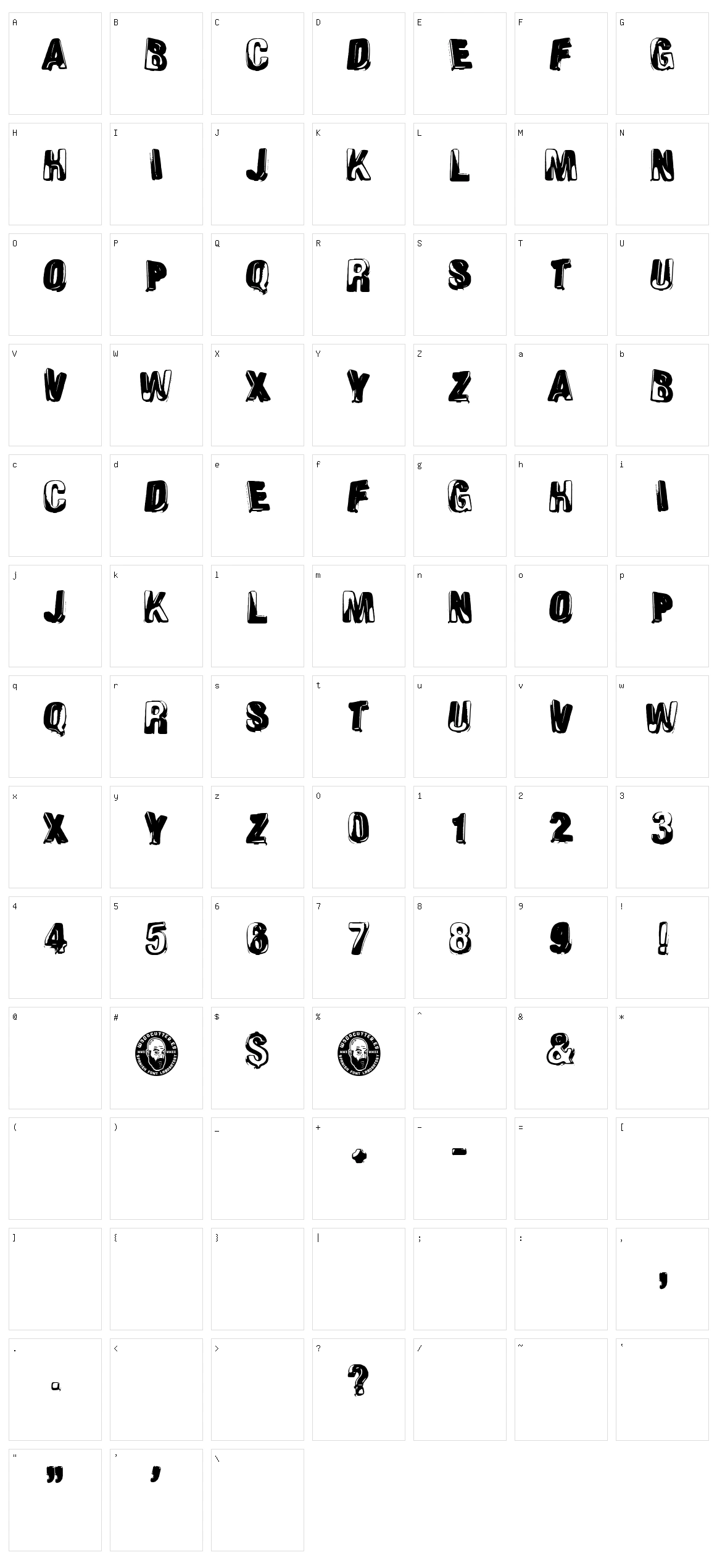
The free font Schizoid Personality is carefully designed by Woodcutter, showcasing a thoughtful balance of creativity and usability and falls under the Distorted font style. When you download the ZIP file, it contains only 61.38 KB of font files, making it lightweight and quick to download. Please review the license details below to understand permitted usage and distribution rights. If license information is not available, we recommend using this font for personal projects only or contacting the author directly for commercial usage permissions.